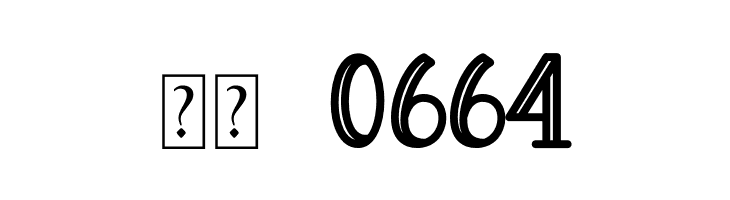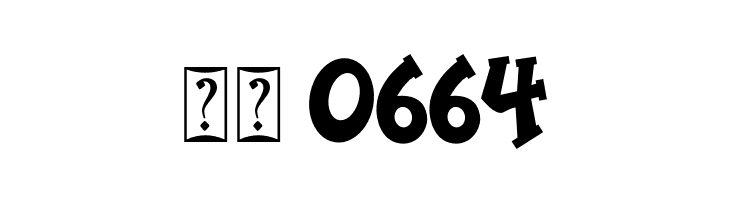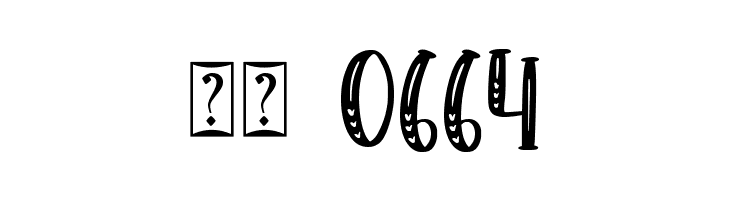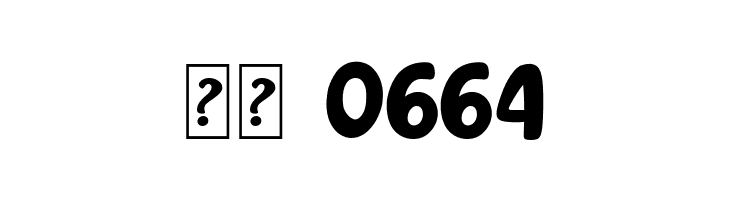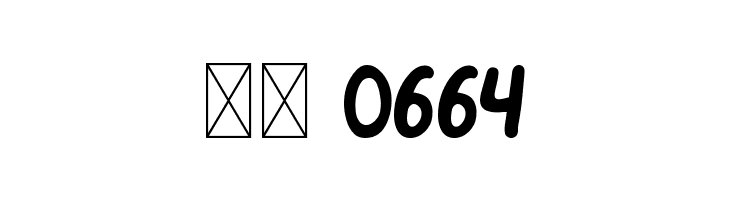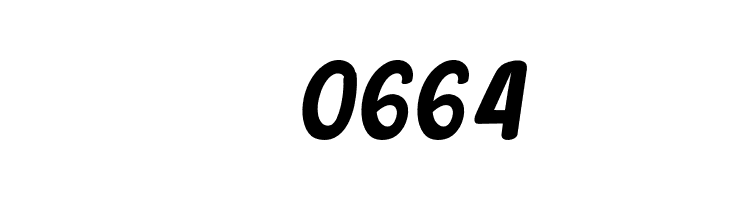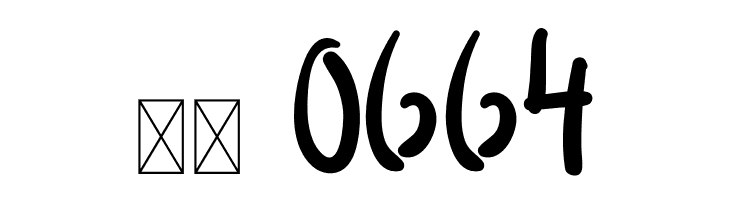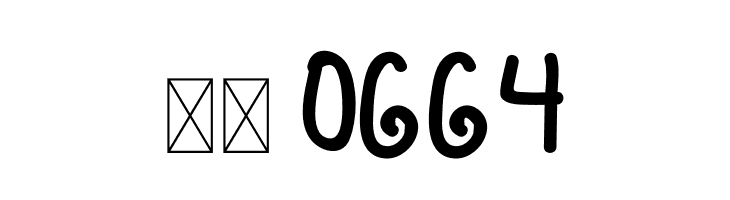
A playful and whimsical script font with elegant, flowing lines and unique flourishes.
A bold, dripping font perfect for horror-themed designs.
A bold, rounded, and playful font with a bubble-like appearance.
A bold, playful, and hand-drawn font with a casual, informal style.
A playful, cursive script font with a friendly and relaxed style.
A fluid and elegant cursive font with a modern calligraphic style.
A playful, bold handwritten font with rounded edges and a casual style.
A bold, distressed font with a grunge texture and artistic flair.
A bold, dramatic serif font with unique, theatrical serifs and strong presence.
An elegant script font with flowing, cursive letters and calligraphic style.
A playful and elegant script font with fluid, continuous strokes.
A playful, hand-drawn font with bold, irregular strokes and a casual vibe.
A playful handwritten font with fluid, energetic strokes.
A casual, handwritten font with a playful and friendly style.
A playful, bold handwritten font with a casual and friendly style.
A bold, playful handwritten font with rounded edges and a friendly style.
A playful, handwritten font with smooth, rounded edges and a whimsical style.
A playful, handwritten font with smooth curves and a casual style.
A playful, bold font with rounded, chunky letters and a whimsical style.
Bold, rounded, playful display font with a spooky vibe.
A modern, rounded font with a clean and friendly appearance.
A bold, playful font with a modern and slightly condensed style.
A casual, handwritten font with a playful and relaxed style.
A bold, flowing script font with a handwritten appearance.
A relaxed and elegant script font with flowing, cursive letterforms.
A graceful script font with fluid, connected strokes and elegant flourishes.
A bold, flowing script font with smooth, connected letters and a modern aesthetic.
A bold, blocky font with a vintage-modern style, perfect for impactful designs.
A bold, playful handwritten font with rounded edges and a casual vibe.